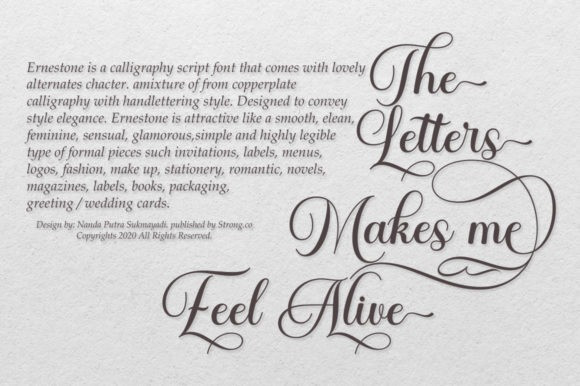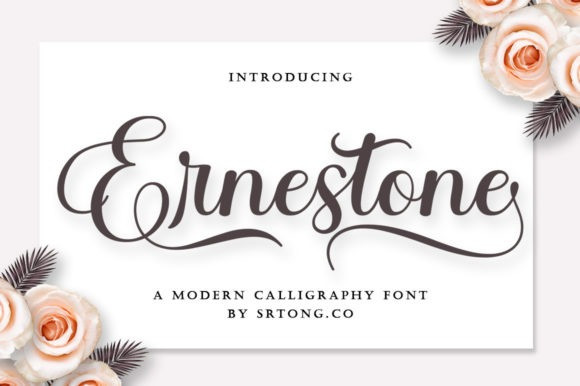
Ernestone Font
Ernestone Font by Strong.co 22,751 downloads
Ernestone Font
Ernestone Script Font is an elegant script font with a contemporary atmosphere and impeccable form, inspired by timeless classic calligraphy. This font is PUA encoded which means you can access all glyphs and swashes with ease!